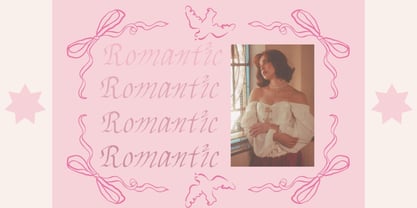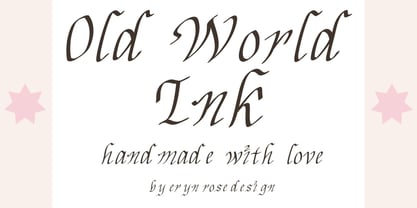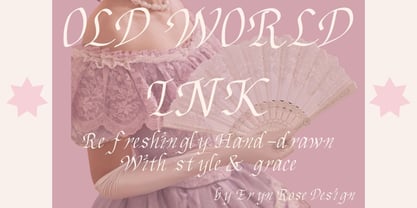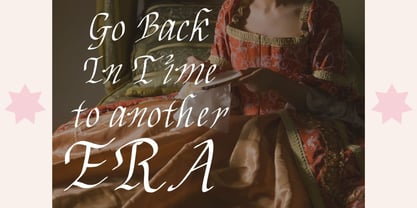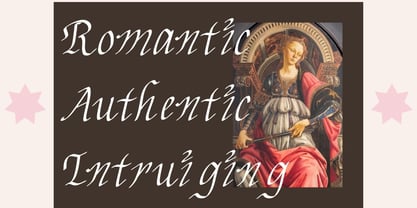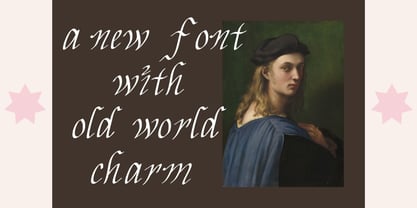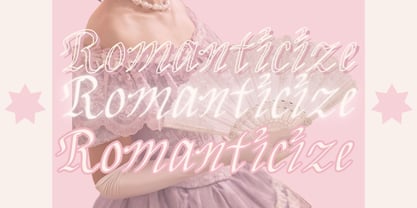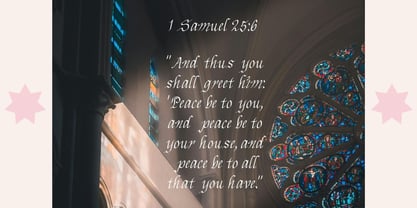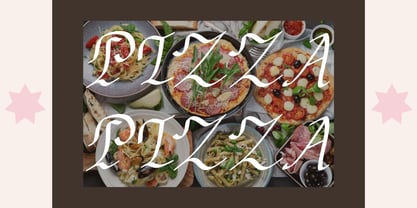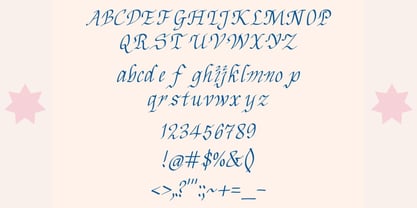
Old World ink
by Eryn Rose Design
The Old World ink Font Family was designed by Eryn Rose Tomlinson and published by Eryn Rose Design. Old World ink contains 1 styles. More about this family
Old World Font is a hand-drawn, stylized typeface inspired by the classic art of ink writing on scrolls. This versatile font serves as a stunning display option, perfect for quotes, greeting cards, and trendy magazine layouts. With its elegant and classic design, it offers a contemporary twist on a timeless aesthetic reminiscent of renaissance artistry. Ideal for those who appreciate a romantic flair combined with modern sensibilities, this font brings a unique charm to any project.
Designers: Eryn Rose Tomlinson
Foundry: Eryn Rose Design